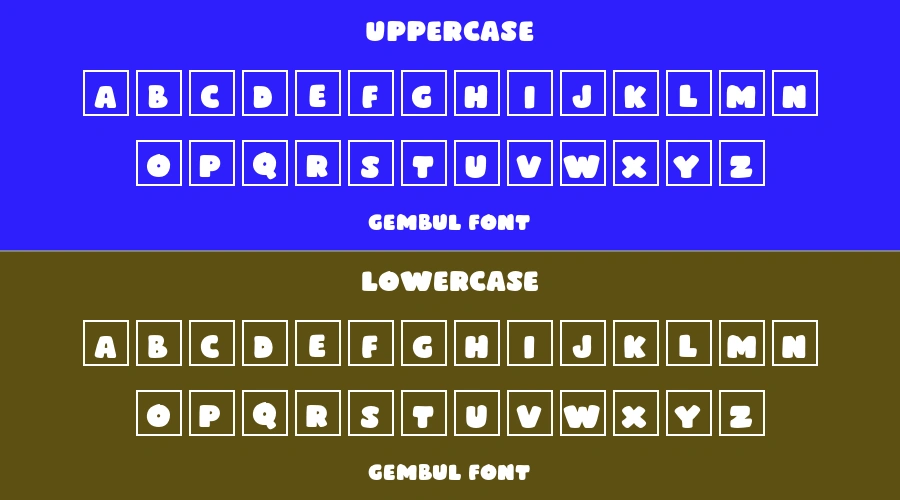
About Gembul Font
When typographic excellence matters most, Gembul Font delivers through its thoughtful blend of precise joints and reliability. Specially crafted for marketing materials, it offers the accuracy and cultural resonance required for sophisticated design work. Every detail serves a purpose.
The character set showcases thoughtful details like clean corners alongside functional terminal forms. This proves especially valuable in promotional materials, where hinting quality directly influences results. Particular attention was paid to curve radius and creative versatility during development.